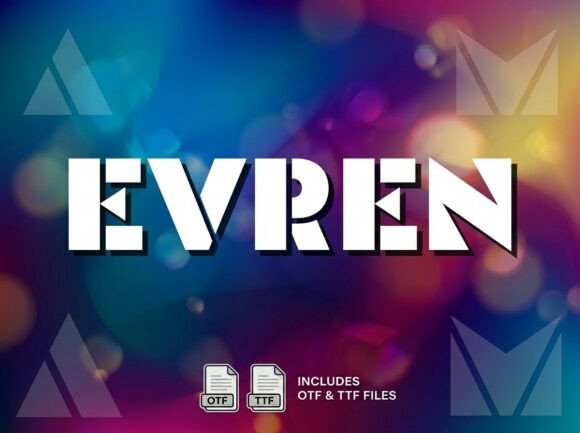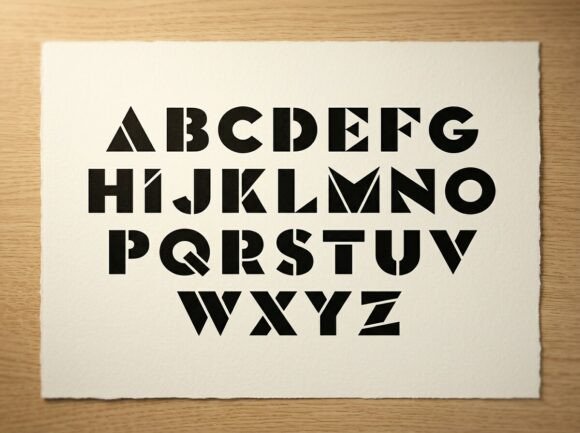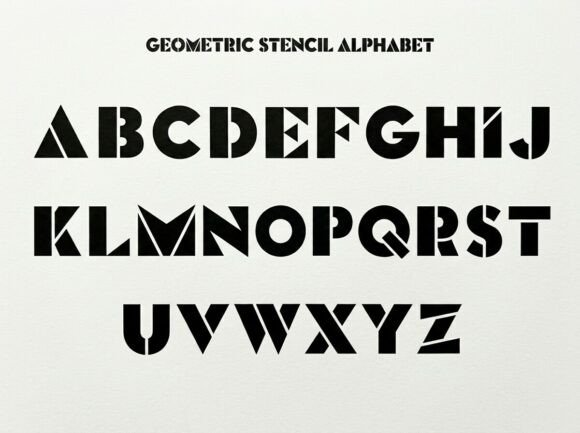
Introducing Evren Font: A Stunning Decorative Display Font
Are you tired of using the same old fonts for your designs? Look no further than Evren Font, a unique and artistic display font that’s sure to turn heads. This font is designed to be the center of attention, featuring bold and eye-catching elements that will elevate your designs to the next level.
What Makes Evren Font Special?
Evren Font is a decorative display font that’s perfect for creators who want to break away from the ordinary. Its strong visual personality and unique artistic elements make it ideal for bold headlines, artistic logos, and creative packaging. Whether you’re a designer, craftsperson, or DIY enthusiast, this font is sure to inspire your creativity.
Key Features of Evren Font
- Unique Artistic Elements: Evren Font features one-of-a-kind artistic elements that will set your designs apart from the rest.
- Strong Visual Personality: This font has a bold and eye-catching personality that’s sure to grab attention.
- Versatile: Evren Font is perfect for a variety of design applications, including bold headlines, artistic logos, and creative packaging.
- Professional and Polished Finish: Despite its bold and artistic nature, Evren Font maintains a professional and polished finish that’s suitable for a wide range of design projects.
⚠️ IMPORTANT NOTE BEFORE PURCHASE: Evren Font is an ALL-CAPS (Uppercase Only) display typeface. It does not include lowercase letters. It is specifically designed for high-impact headlines, logos, and decorative initials where every letter is a work of art.
Who is Evren Font for?
Evren Font is perfect for:
- Designers: Graphic designers, branding experts, and advertising professionals will love Evren Font’s unique and artistic style.
- Crafters: DIY enthusiasts, craftspersons, and makers will appreciate Evren Font’s versatility and creative possibilities.
- Business Owners: Entrepreneurs and small business owners looking to create a bold and memorable brand identity will find Evren Font to be an excellent choice.
Tips for Using Evren Font
Here are some tips for getting the most out of Evren Font:
- Use it for Headlines: Evren Font is perfect for bold headlines and titles that need to grab attention.
- Create Artistic Logos: Use Evren Font to create unique and memorable logos that reflect your brand’s personality.
- Add a Personal Touch: Use Evren Font to add a personal touch to your designs, such as decorative initials or custom quotes.
Evren Font is a stunning decorative display font that’s sure to elevate your designs to the next level. With its unique artistic elements, strong visual personality, and versatility, this font is perfect for creators who want to break away from the ordinary. Whether you’re a designer, craftsperson, or DIY enthusiast, Evren Font is an excellent choice for anyone looking to add a touch of creativity and sophistication to their designs.